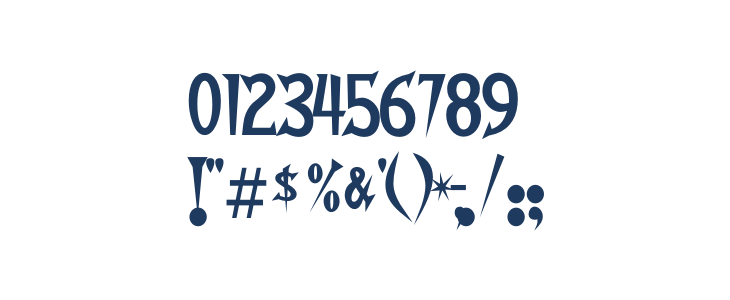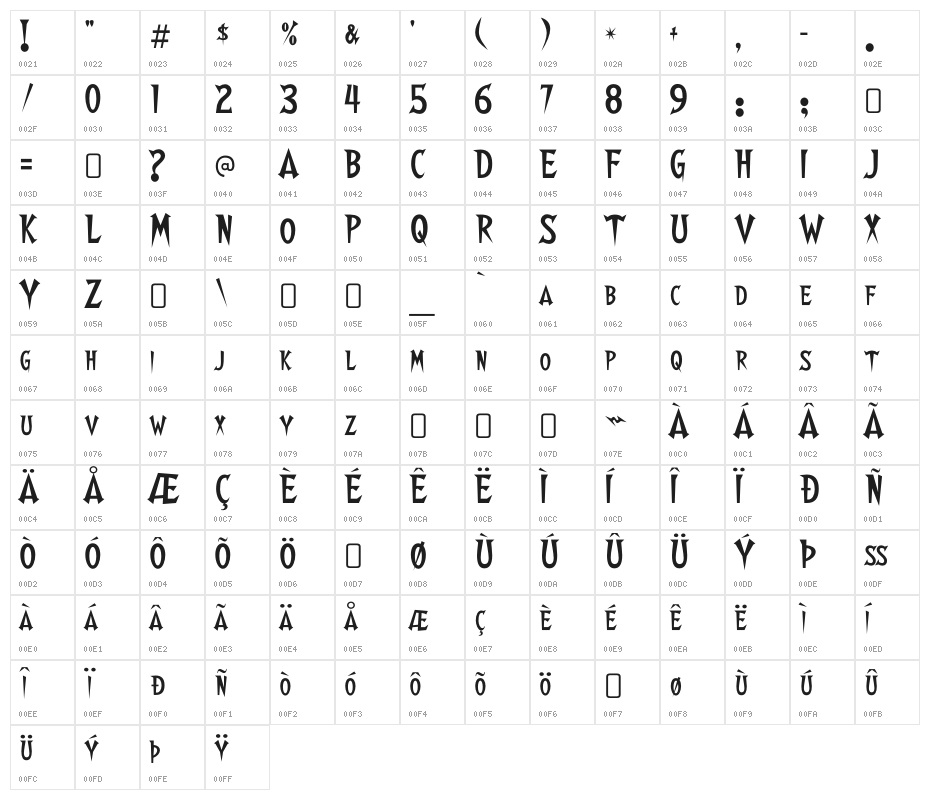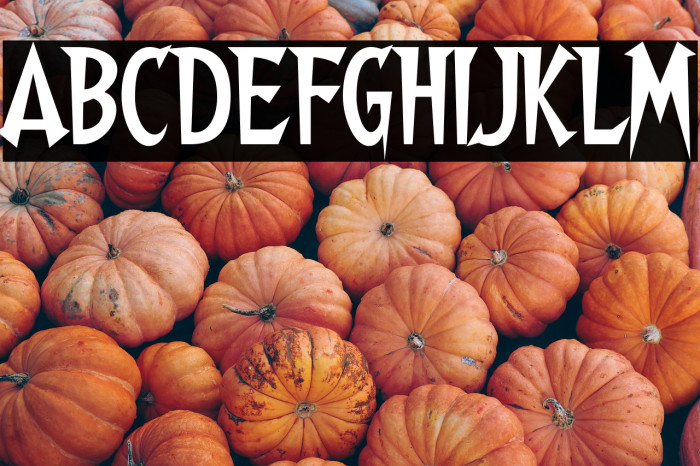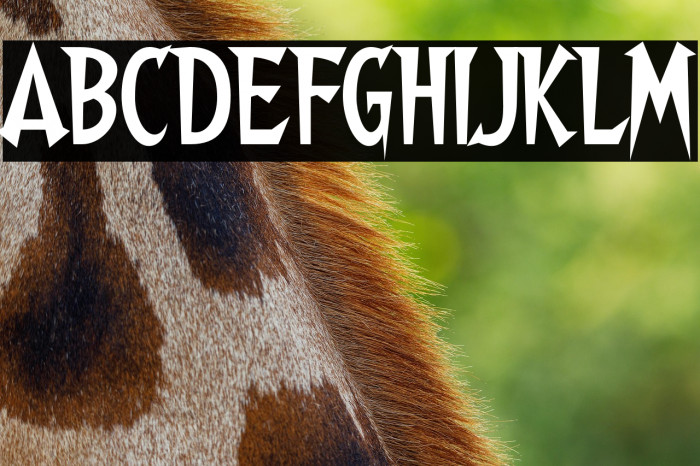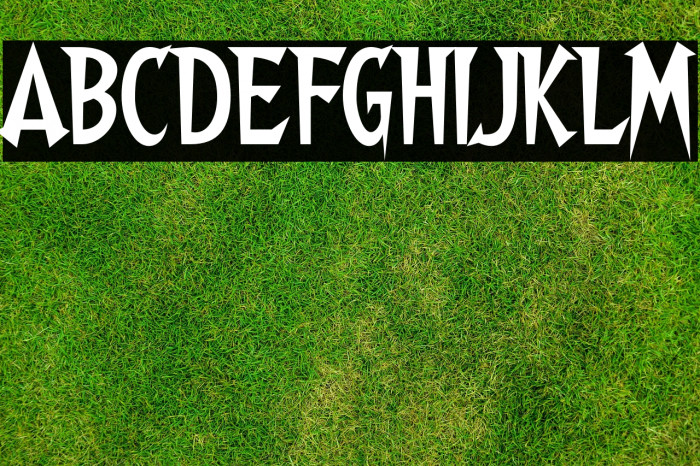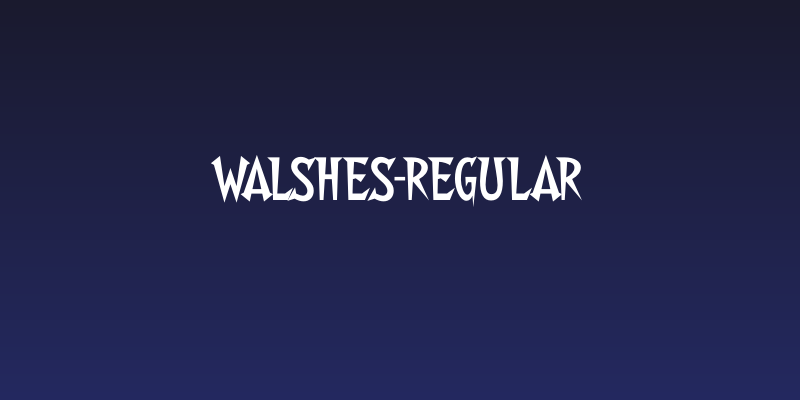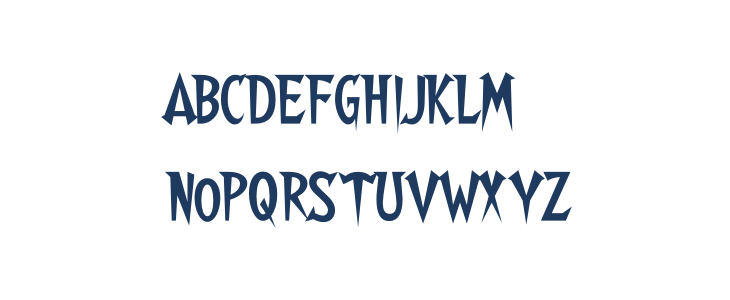
Walshes-Regular Font
Walshes-Regular Description
This font features a bold and dynamic design with sharp, angular edges that give it a striking and aggressive appearance. The characters are uniquely styled with pointed serifs and exaggerated curves, creating a sense of movement and energy. The uppercase and lowercase letters maintain a consistent style, while the numerals and special characters complement the overall aesthetic. This font is perfect for projects that require a bold statement or a dramatic flair, such as posters, logos, or album covers. Its distinctive style ensures it stands out in any design context.
| Proposed Projects | Ideal for posters, logos, album covers, and any design needing a dramatic flair. |